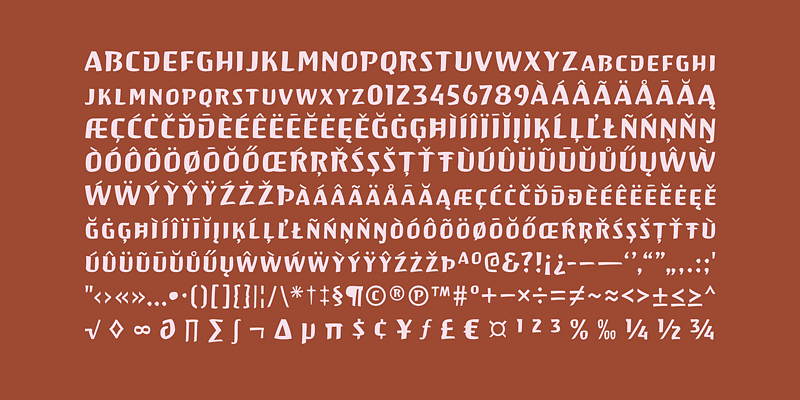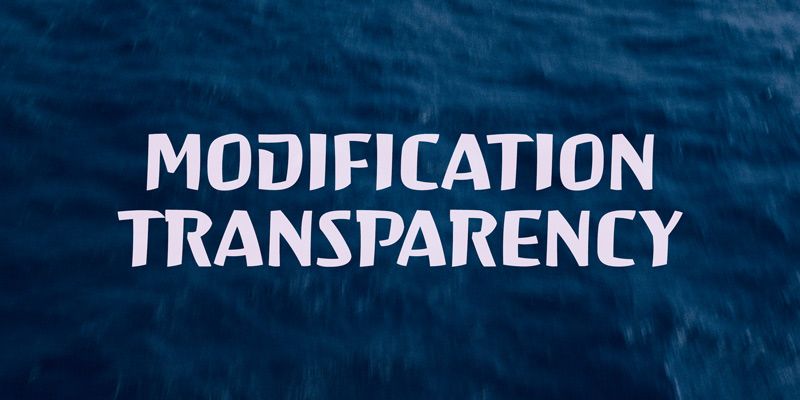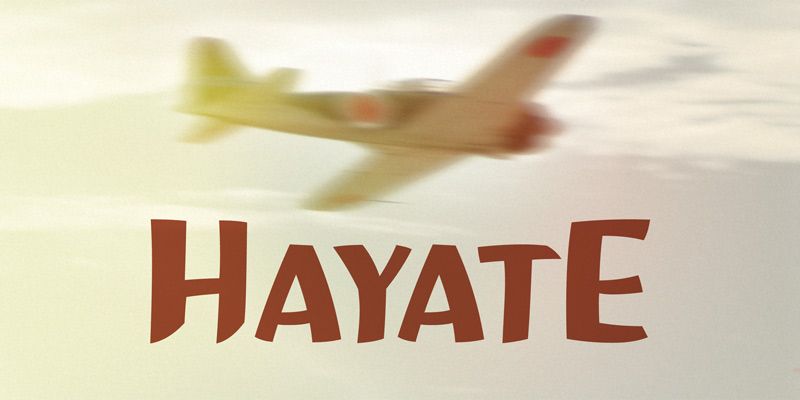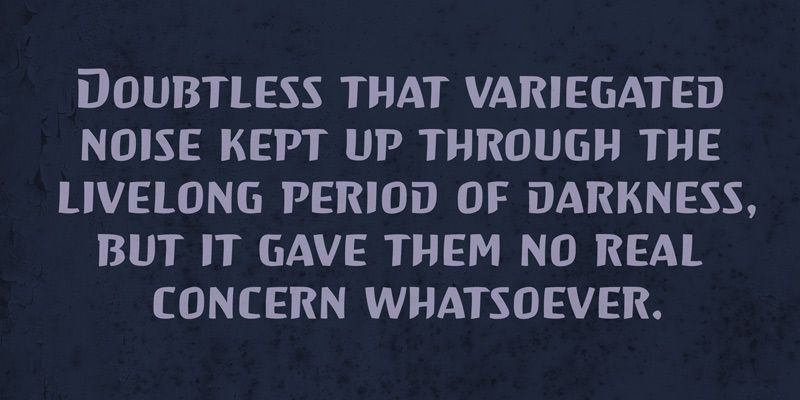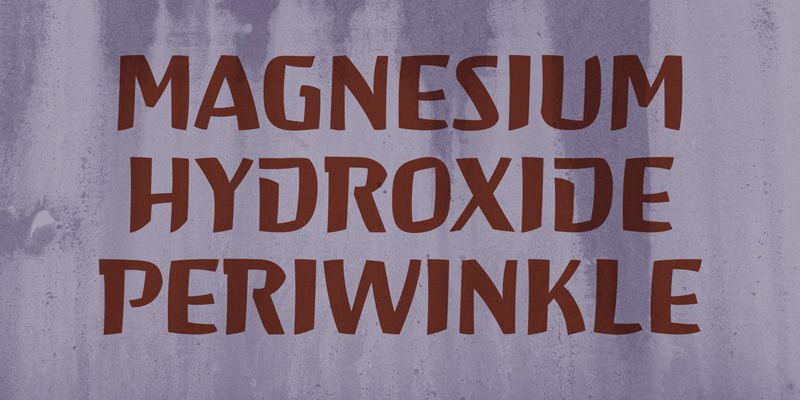
Hayate is a rugged small-cap display face whose cuts suggest sections of bamboo. Its compact, uneven rhythm gives short words the presence of hand-hewn signage, while the smaller capitals keep a line from becoming a solid block. The reference is deliberately playful: mid-century American restaurant graphics that imagined an Asian look from a distance. That character can work for a themed menu, theatrical prop, retro package, or an event identity that is knowingly camp.